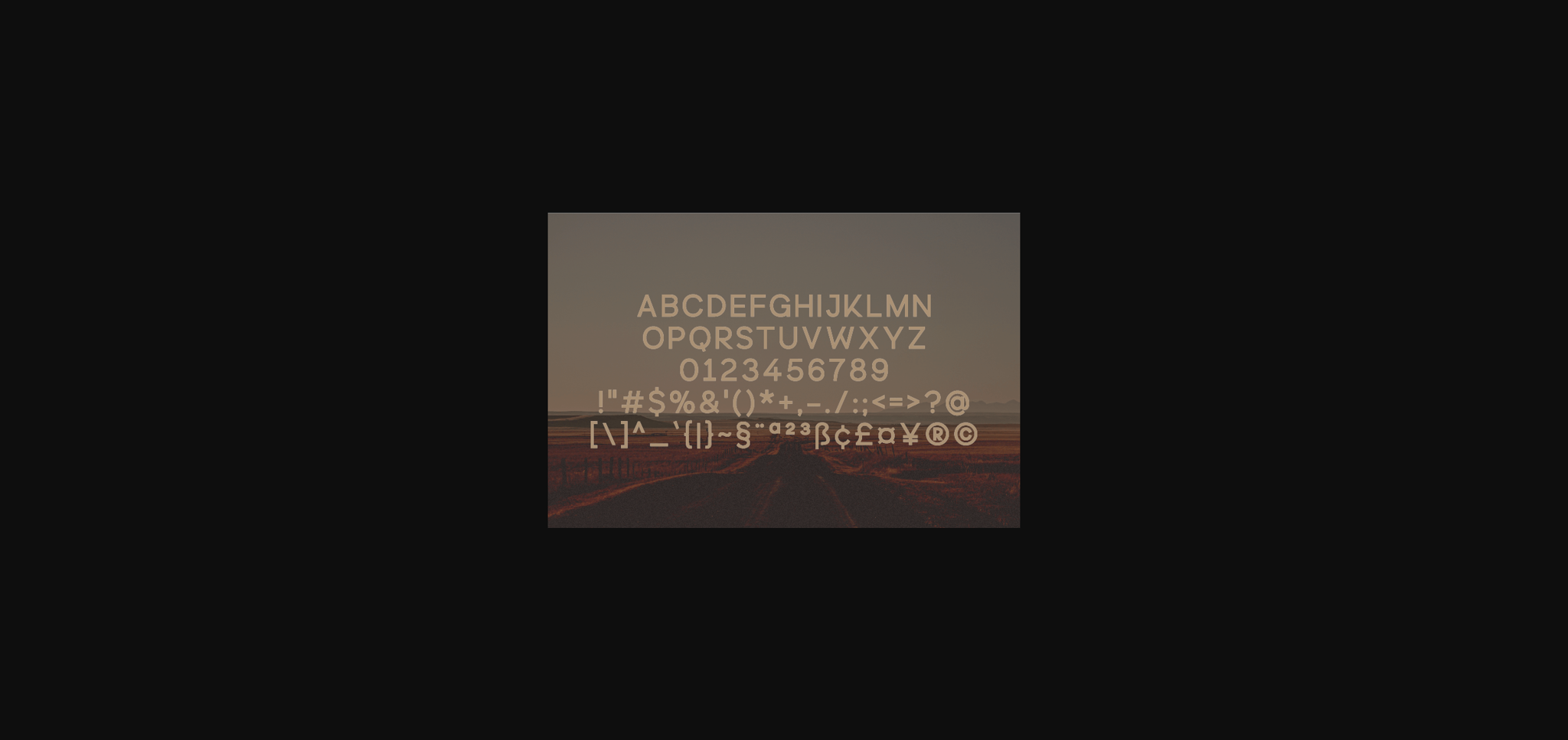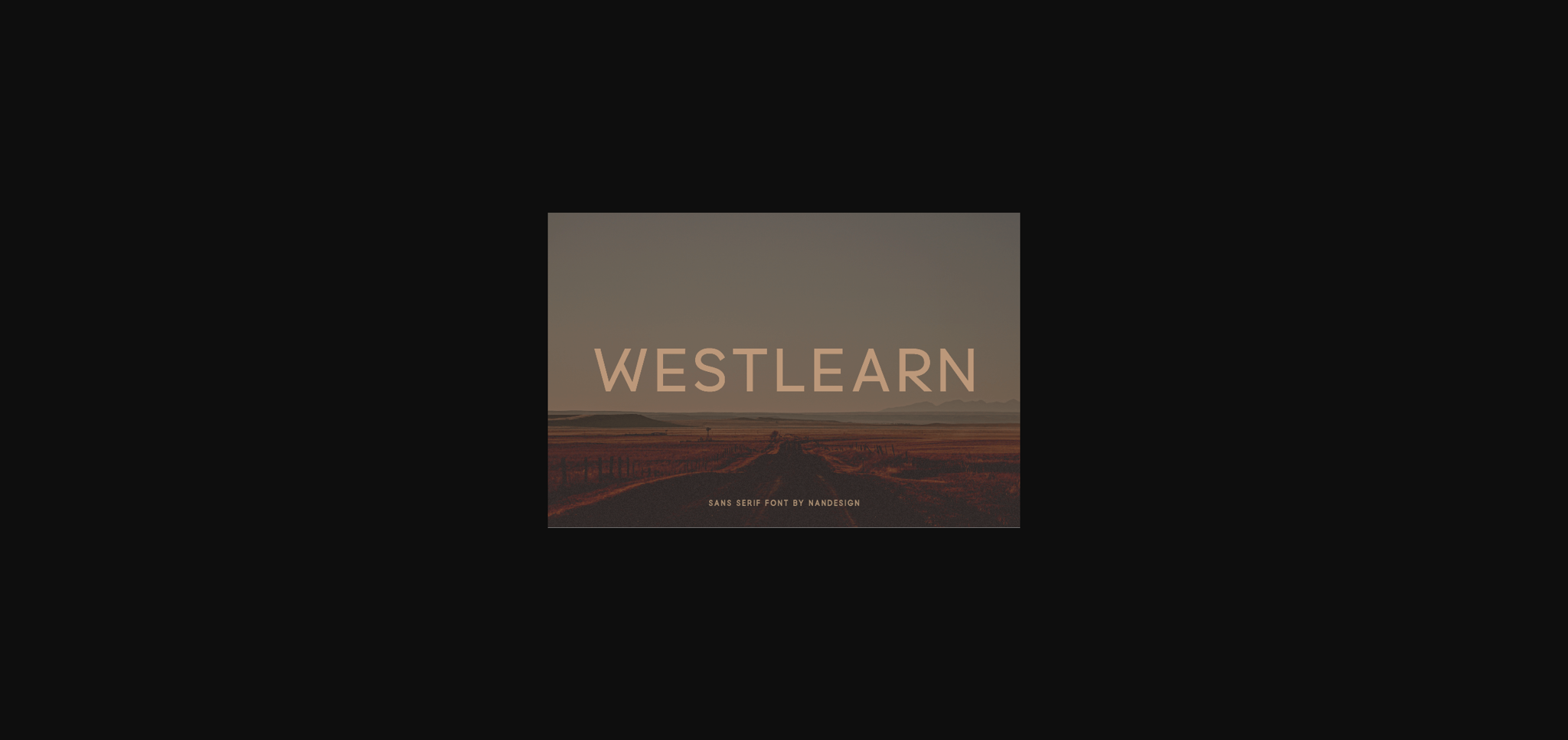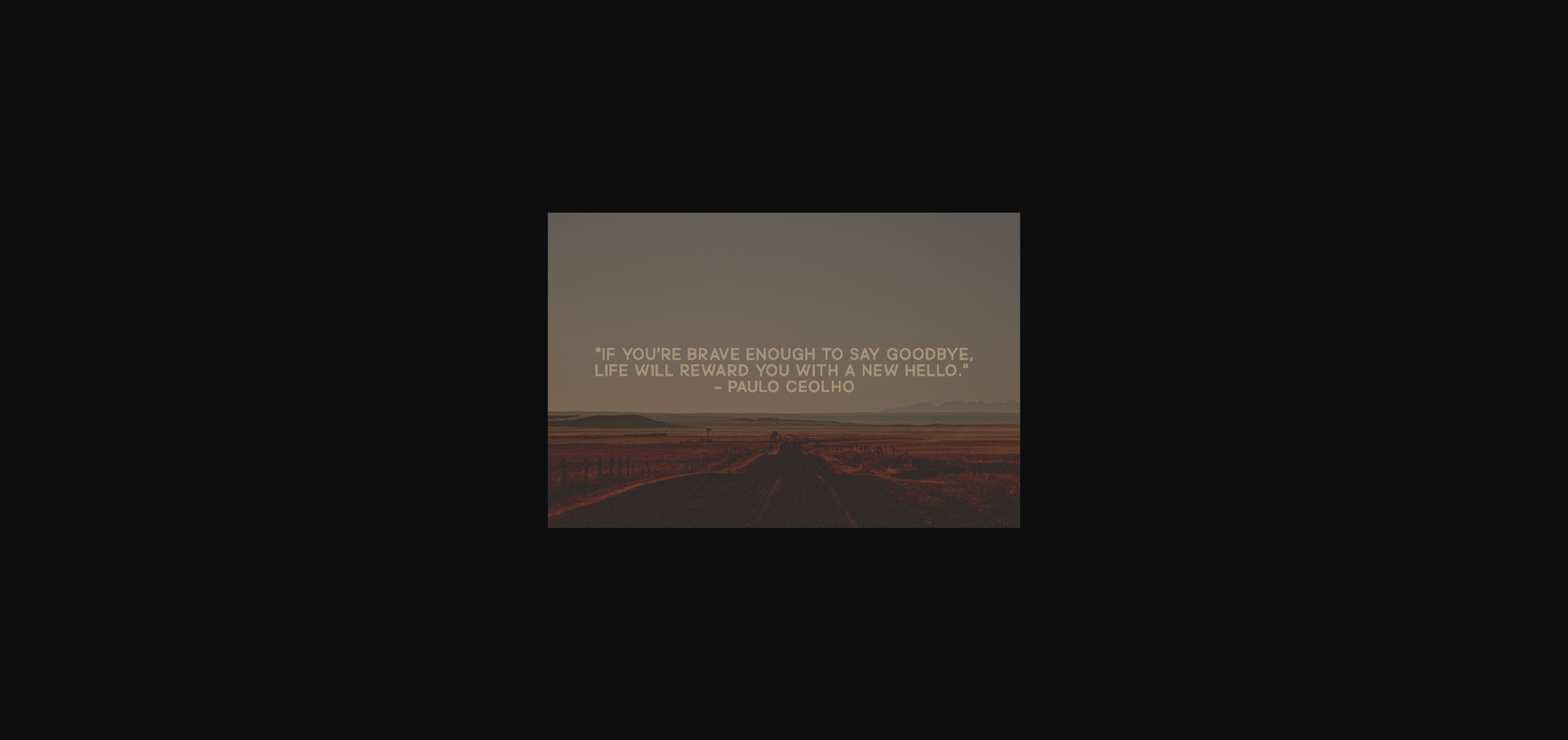
About Westlearn Font
Westlearn is a stunning sans serif font to complement every project you’re working on.
Use it to create beautiful headings, gorgeous invitations, stunning logos, and so much more!!